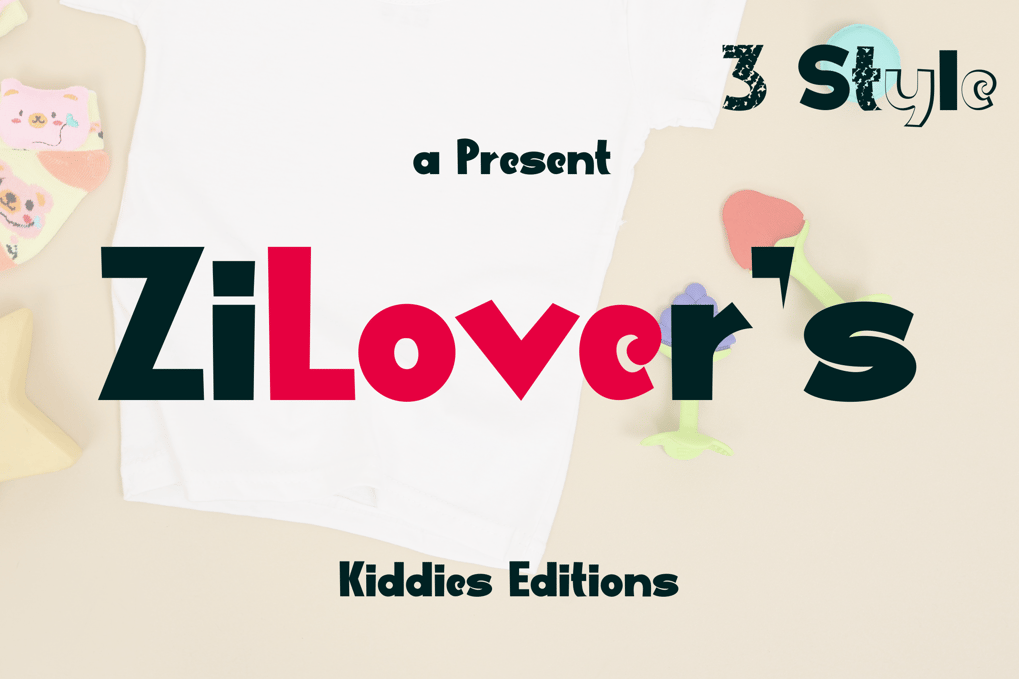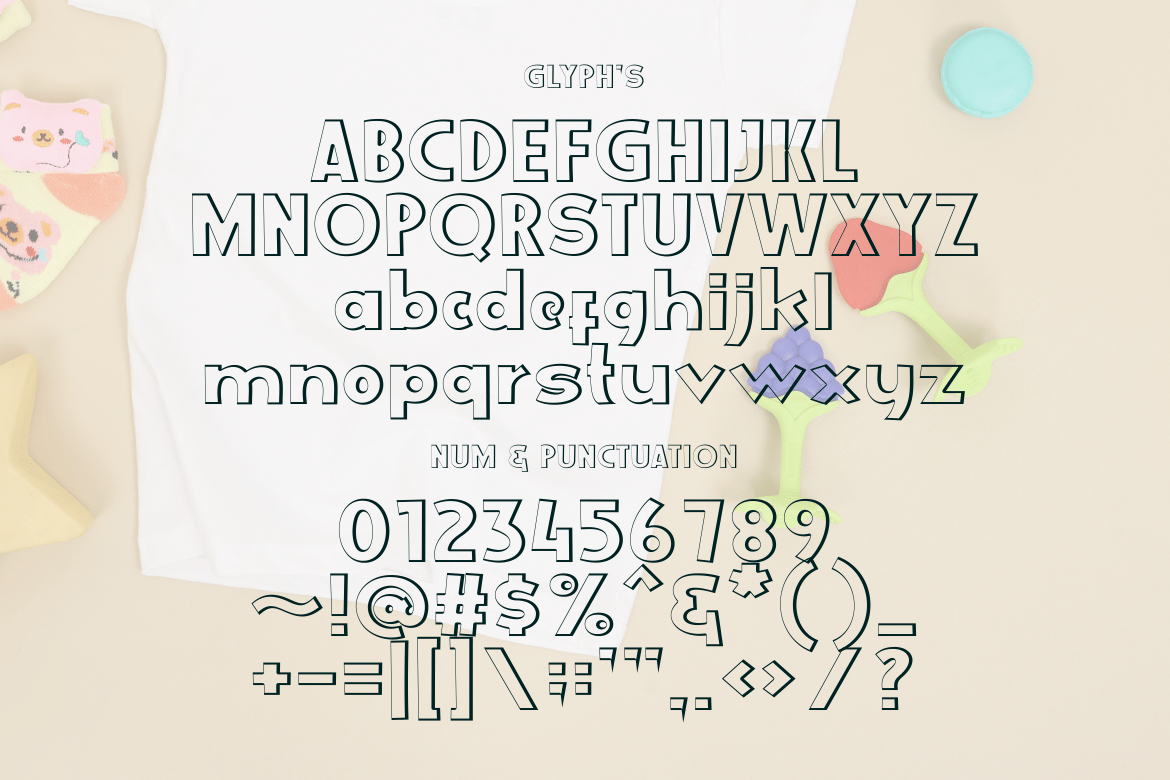
ZiLovers Font
Regular: Classic and versatile for any project.
Outline: Adds a playful touch to your designs.
Broken: A unique style that sparks creativity.
These options allow for endless possibilities in your creations and bright ideas!